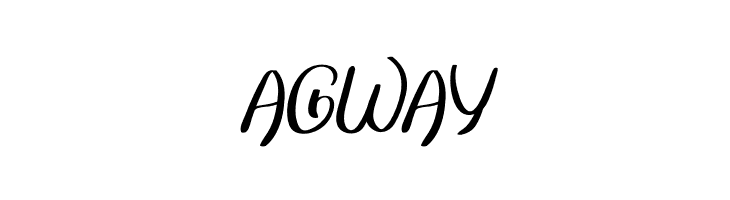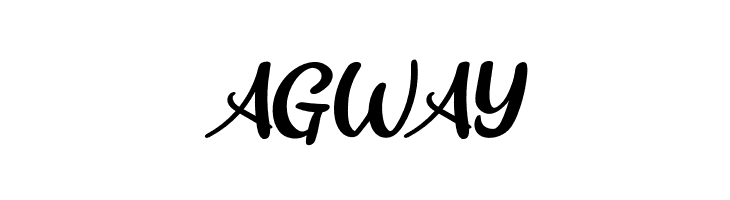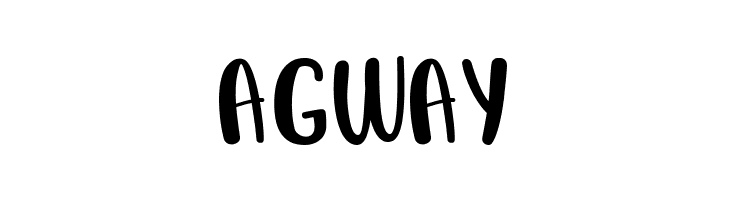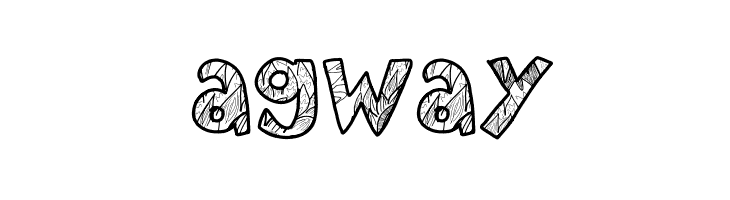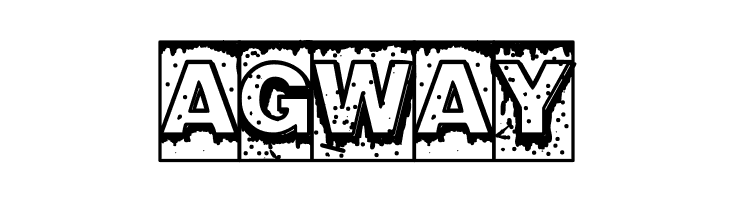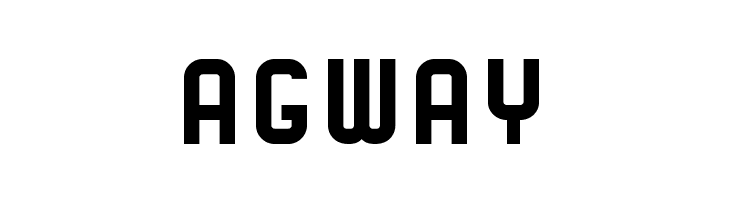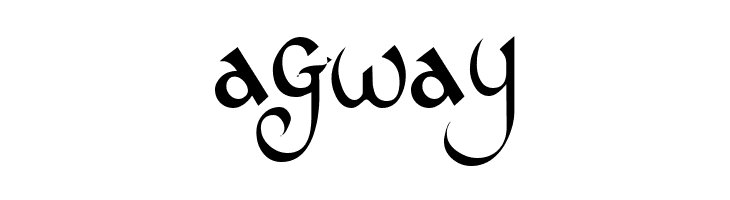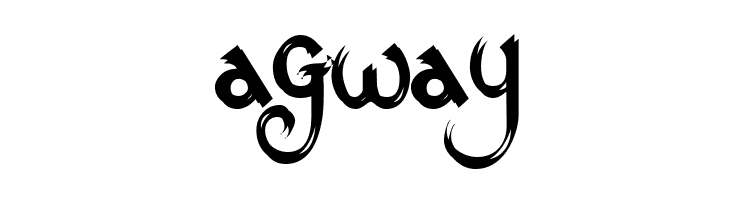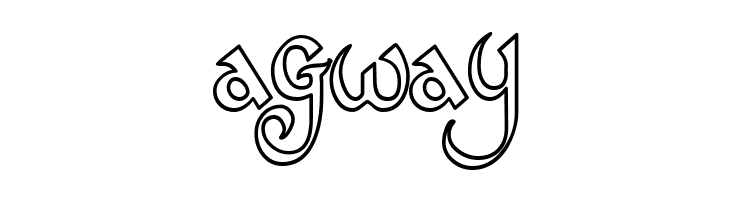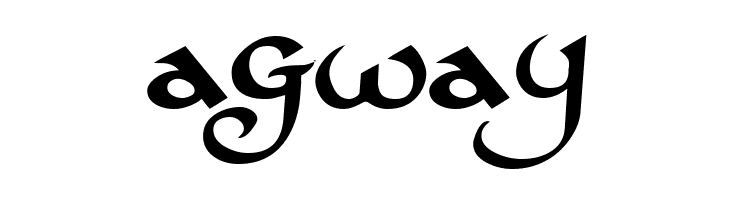
A bold, dramatic font with sharp, angular strokes and intricate detailing.
A bold, gothic-inspired font with intricate details and a medieval flair.
A decorative, hollow font with intricate curves and sharp angles.
An ornate and decorative font with intricate details and dramatic flair.
An elegant, gothic-inspired font with sharp lines and decorative flourishes.
A bold, geometric font with a modern and slightly futuristic aesthetic.
A tall, narrow, hand-drawn font with an organic and playful style.
A gritty, distressed font with a hand-drawn, urban style.
A pixelated dot matrix font with a retro digital display style.
A bold, decorative font with a swamp-like texture and organic, rugged appearance.
A playful, handwritten font with smooth curves and a casual style.
A bold, flowing script font with elegant, cursive letterforms and a modern touch.
A playful, hand-drawn font with intricate patterns and doodles.
A bold, distressed font with a corroded, textured appearance.
A dynamic and flowing script font with elegant, fluid strokes and medium contrast.
A pixelated, blocky font with a retro digital aesthetic.
A modern, handwritten-style font with consistent strokes and a slight slant.
A playful and artistic handwritten font with dynamic curves and angles.
A clean, structured serif font with medium contrast and excellent readability.
An ornate and decorative script font with elegant swirls and flourishes.
A decorative, illustrative set featuring Pokémon characters instead of traditional glyphs.
A bold, geometric font with a modern, digital aesthetic.
A bold, distressed font with a vintage, textured appearance.
A casual, handwritten font with a playful and informal style.
An elegant script font with flowing, cursive letterforms and decorative swashes.
A bold, italic font with dynamic slant and modern flair.
A dynamic italic font with smooth, flowing letterforms and a sophisticated style.